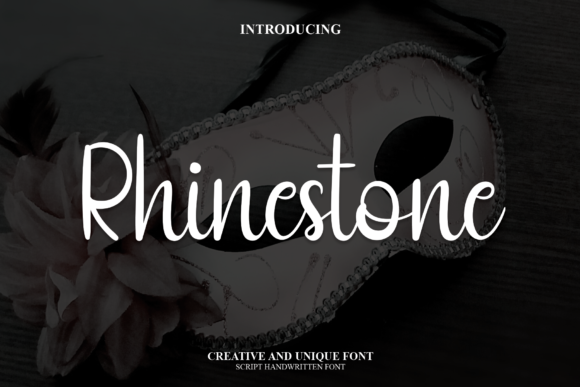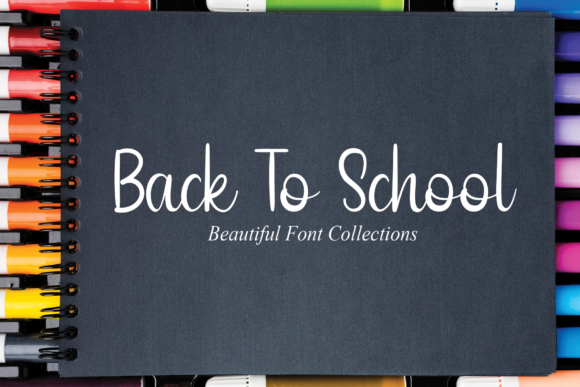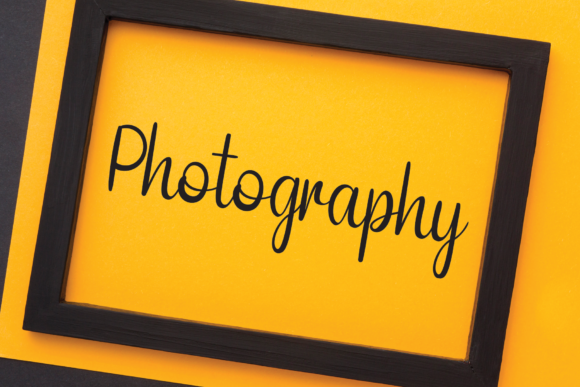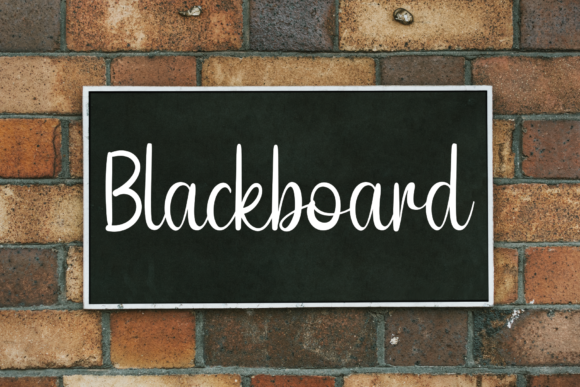
Rhinestone Font
This is a sweet handwritten font. It features beautiful curves in each letter. This font is PUA coded, which means you can access all the glyphs and sweeps easily!